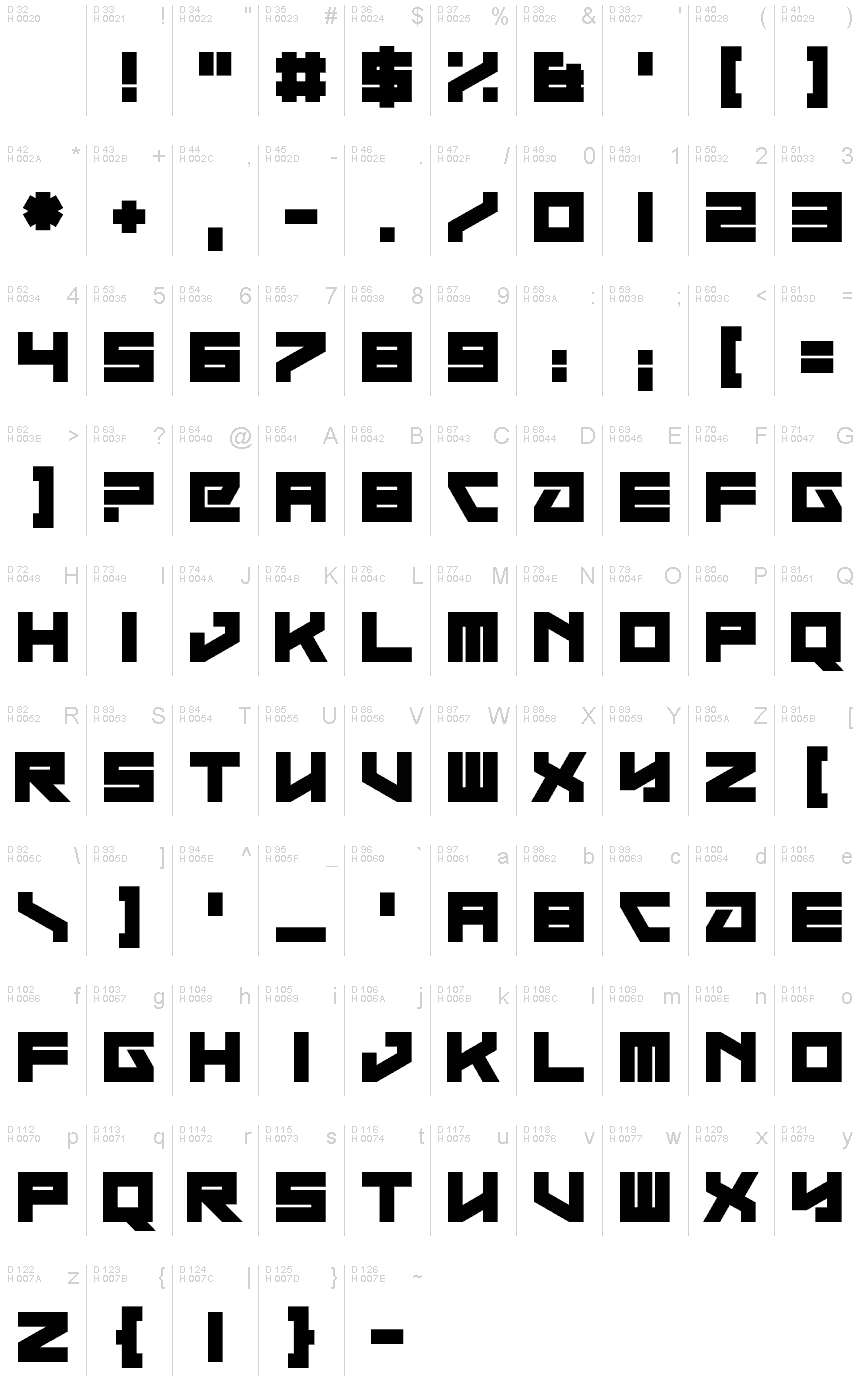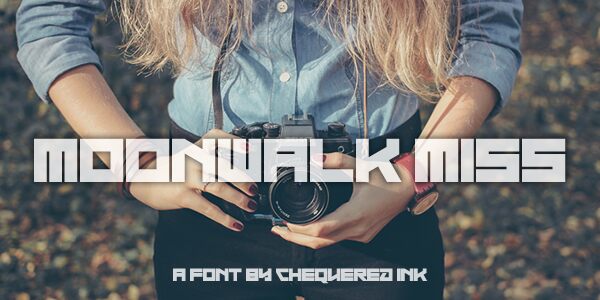
Moonwalk Miss
Moonwalk Miss, a captivating display font crafted by the talented designers at Chequered Ink, exudes a thrilling techno aesthetic with its bold, expanded strokes. This font's distinctive character immediately captures attention, evoking a sense of futuristic allure and technological sophistication. The sharp, angular forms and dynamic flow of the letterforms create a visually striking and impactful impression, making Moonwalk Miss a captivating choice for a wide range of design applications.
Moonwalk Miss's versatility shines through its ability to elevate various design projects, from eye-catching event promotions and concert posters to cutting-edge product branding and digital interfaces. Its bold, expanded nature lends itself seamlessly to attention-grabbing headlines, while the techno-inspired aesthetic effortlessly complements modern and progressive design styles. Designers seeking to infuse their work with a futuristic, high-tech flair will find Moonwalk Miss to be a truly remarkable asset.